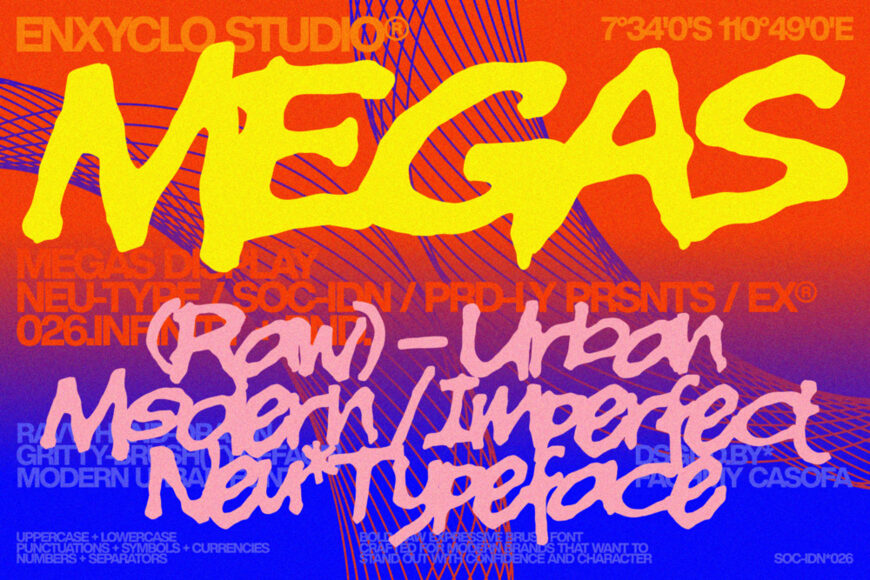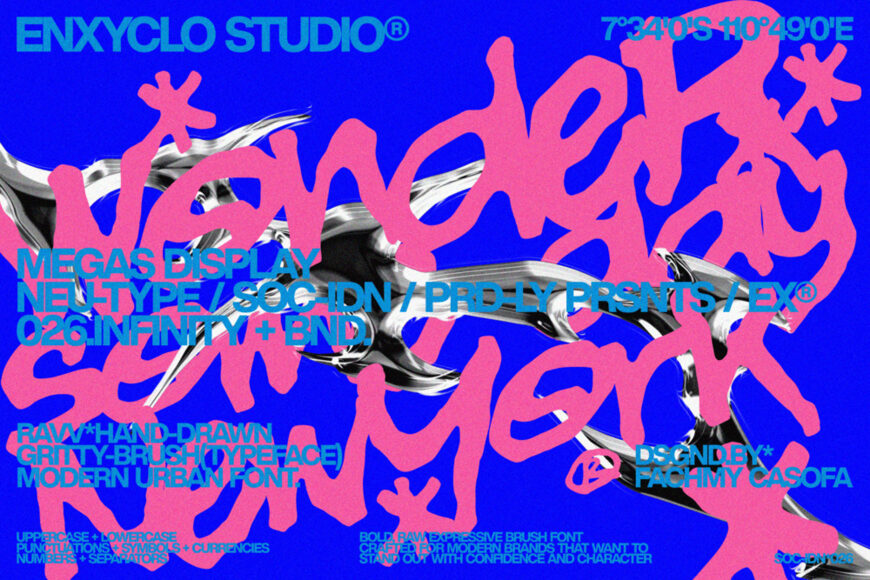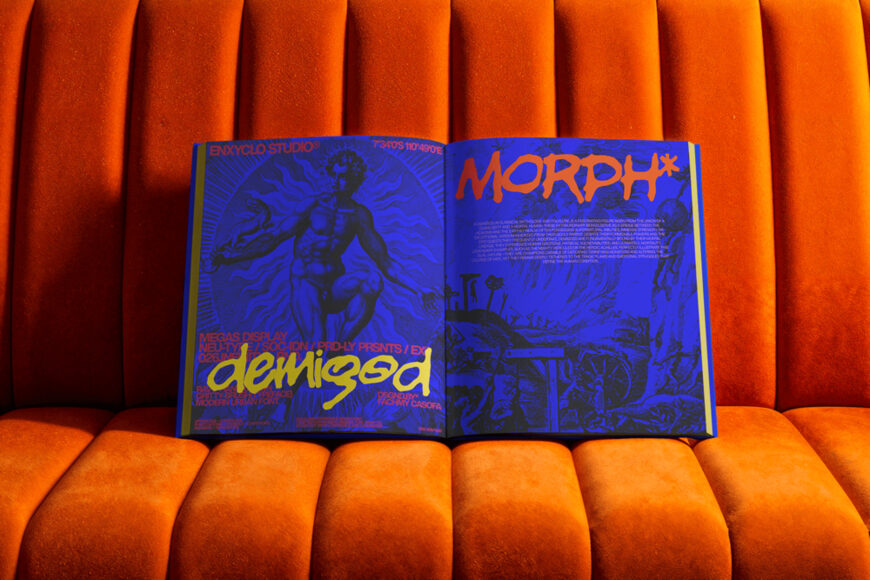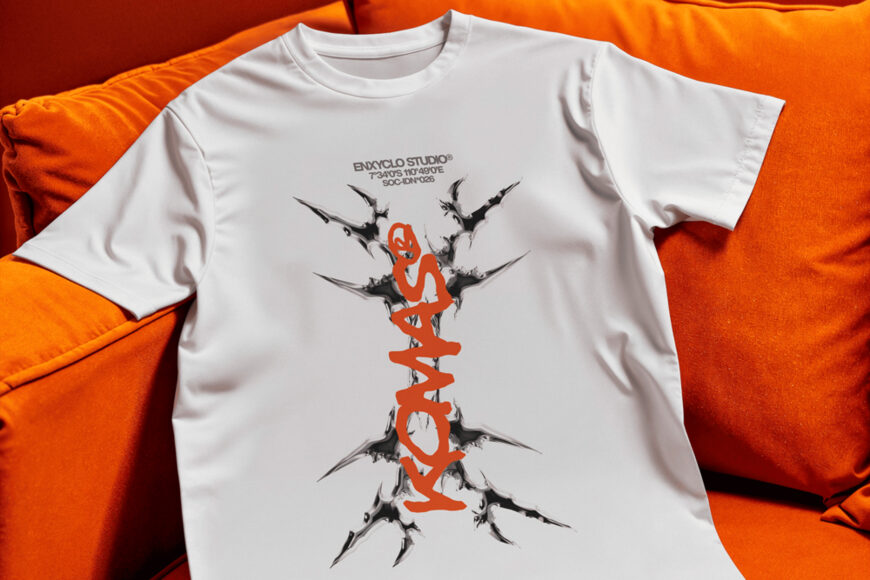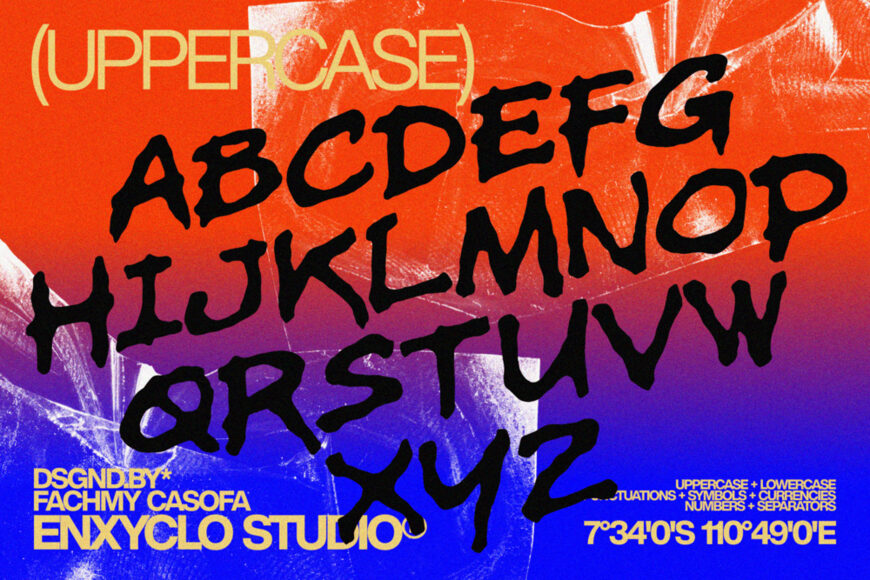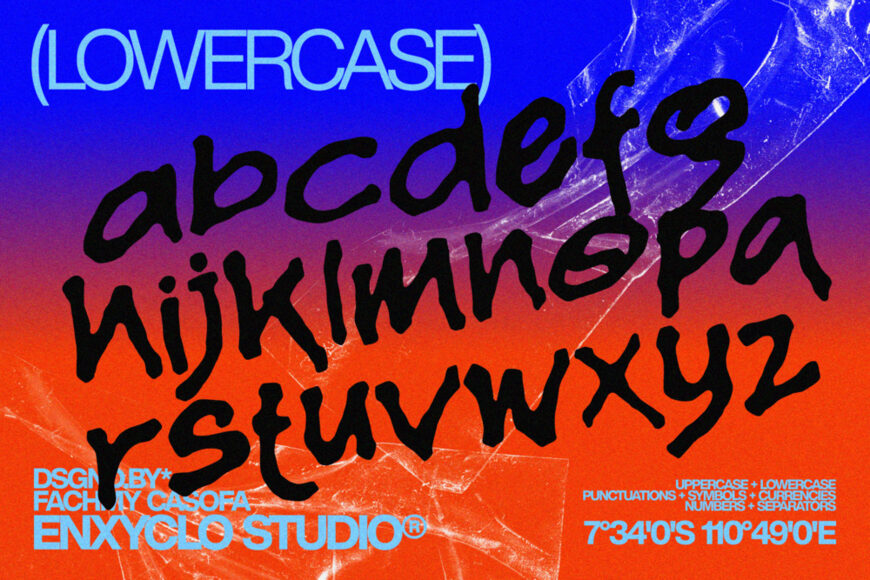
Megas is an imperfect handdrawn branding font that celebrates the beauty of raw expression and authentic design. Built with gritty strokes and natural handdrawn imperfections, this typeface captures the energy of urban creativity and the bold character of industrial-inspired visuals. Every letter feels alive—raw, expressive, and intentionally imperfect—giving your design a powerful handcrafted personality.